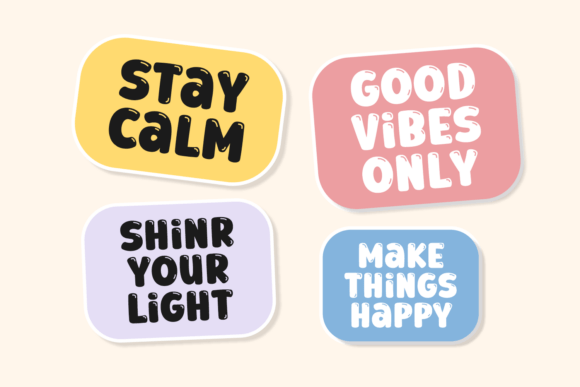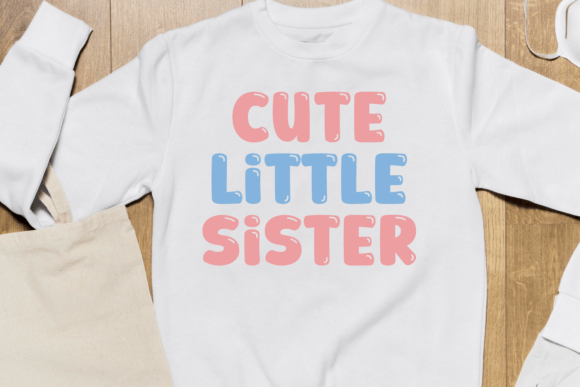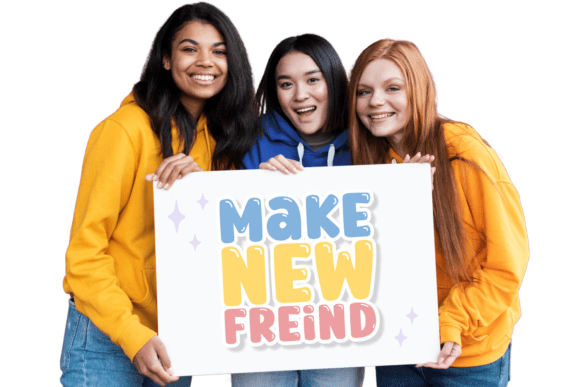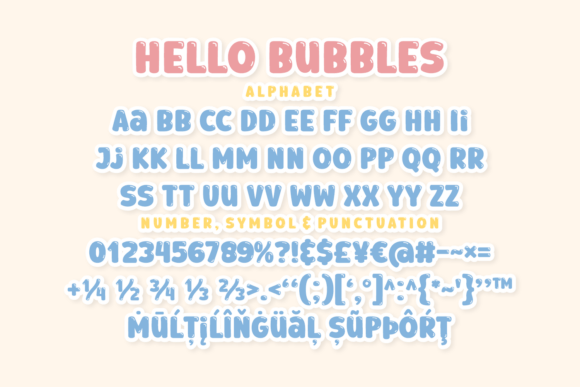
Introducing Hello Bubbles Font: The Ultimate Choice for a Playful and Spirited Aura
Are you looking for a font that can add a touch of playfulness and joy to your content? Look no further than the “Hello Bubbles” font. This unique and charming font is renowned for its rounded letterforms that appear almost inflated, exuding a sense of accessibility and fun. In this article, we’ll dive into the features and benefits of the “Hello Bubbles” font and explore how it can elevate your designs.
A Font that Pops: Unique and Rounded Letterforms
The “Hello Bubbles” font boasts tender, cushiony shapes that are brilliantly enriched with a subtle interior highlight and a striking outline. This creates a captivating three-dimensional effect that radiates sheer joy. The font’s unique design enables it to diverge from conventional or geometric fonts, instantly infusing any text with joviality and levity. Whether you’re designing for children or informal events, this font is sure to make your content stand out.
A Comprehensive Typographic Utility
The “Hello Bubbles” font set encompasses a full suite of upper and lowercase letters, numerals from 0 to 9, along with commonly used punctuation marks and symbols. This comprehensive typographic utility makes it an excellent choice for designers and crafters who need a versatile font for various projects. Additionally, the font comes equipped with multilingual support, catering to a worldwide audience.
The “Hello Bubbles” font is perfect for designers and crafters who want to add a touch of whimsy and fun to their projects. Whether you’re creating:
• Children’s books or educational materials
• Invitations or announcements for informal events
• Social media graphics or blog posts
• Branding materials or packaging
This font is sure to bring a smile to your audience’s faces.
Key Features of Hello Bubbles Font
Here are some of the key features that make the “Hello Bubbles” font stand out:
• Unique, rounded letterforms with a 3D effect
• Comprehensive typographic utility with upper and lowercase letters, numerals, punctuation marks, and symbols
• Multilingual support
• Playful and spirited aura that’s perfect for informal designs
How to Use Hello Bubbles Font in Your Designs
Using the “Hello Bubbles” font in your designs is easy. Here are some tips to get you started:
• Pair it with a bold font for a fun contrast
• Use it as a headline font to grab attention
• Experiment with different colors and textures to enhance the 3D effect
• Mix and match with other playful fonts for a unique look
The “Hello Bubbles” font is a game-changer for designers and crafters who want to add a touch of playfulness and joy to their content. With its unique, rounded letterforms and comprehensive typographic utility, this font is sure to elevate your designs and bring a smile to your audience’s faces. So why wait? Download the “Hello Bubbles” font today and immerse your content in a buoyant and spirited aura.
Examples of Hello Bubbles Font in Action
Here are some examples of the “Hello Bubbles” font in action:
Examples of Hello Bubbles Font
As you can see, the “Hello Bubbles” font is versatile and can be used in a variety of contexts. Whether you’re designing for children or informal events, this font is sure to make your content stand out.
Get Ready to Make a Statement with Hello Bubbles Font
With the “Hello Bubbles” font, you can make a statement and add a touch of whimsy to your designs. So don’t settle for boring, conventional fonts. Choose the “Hello Bubbles” font for your next project and watch your content come alive with joy and playfulness.